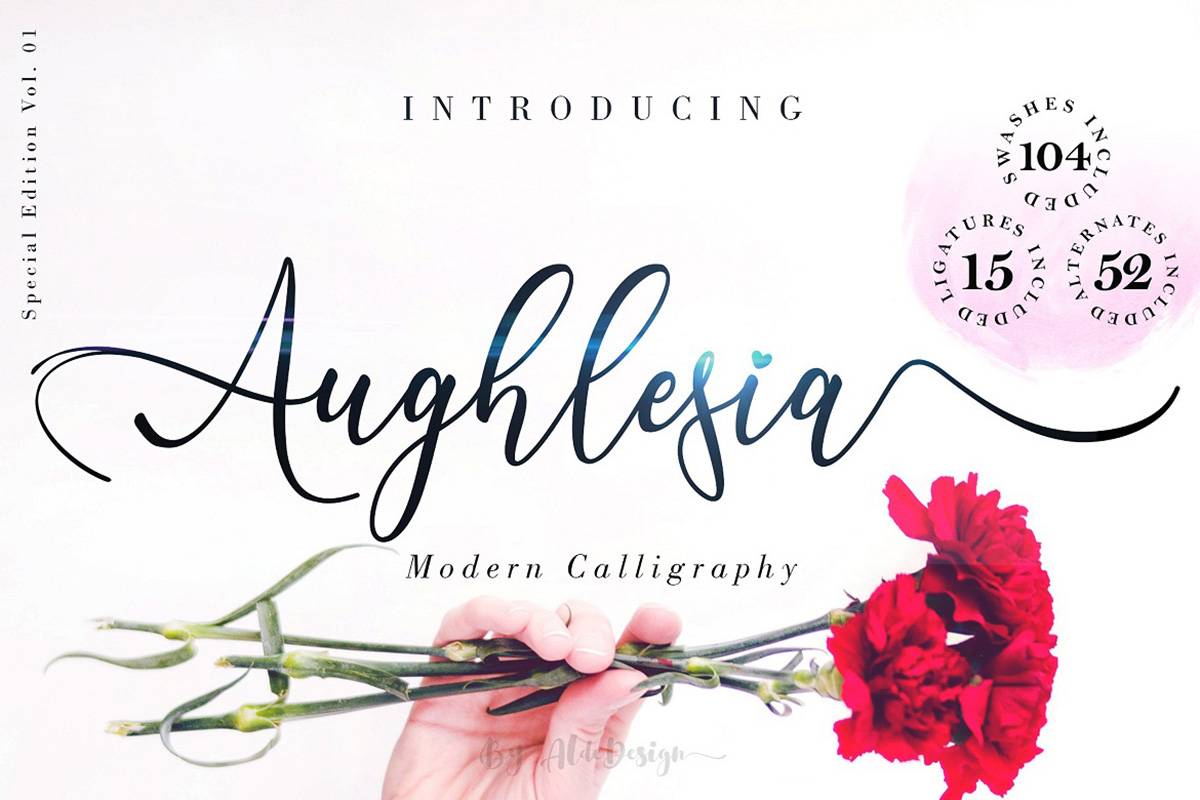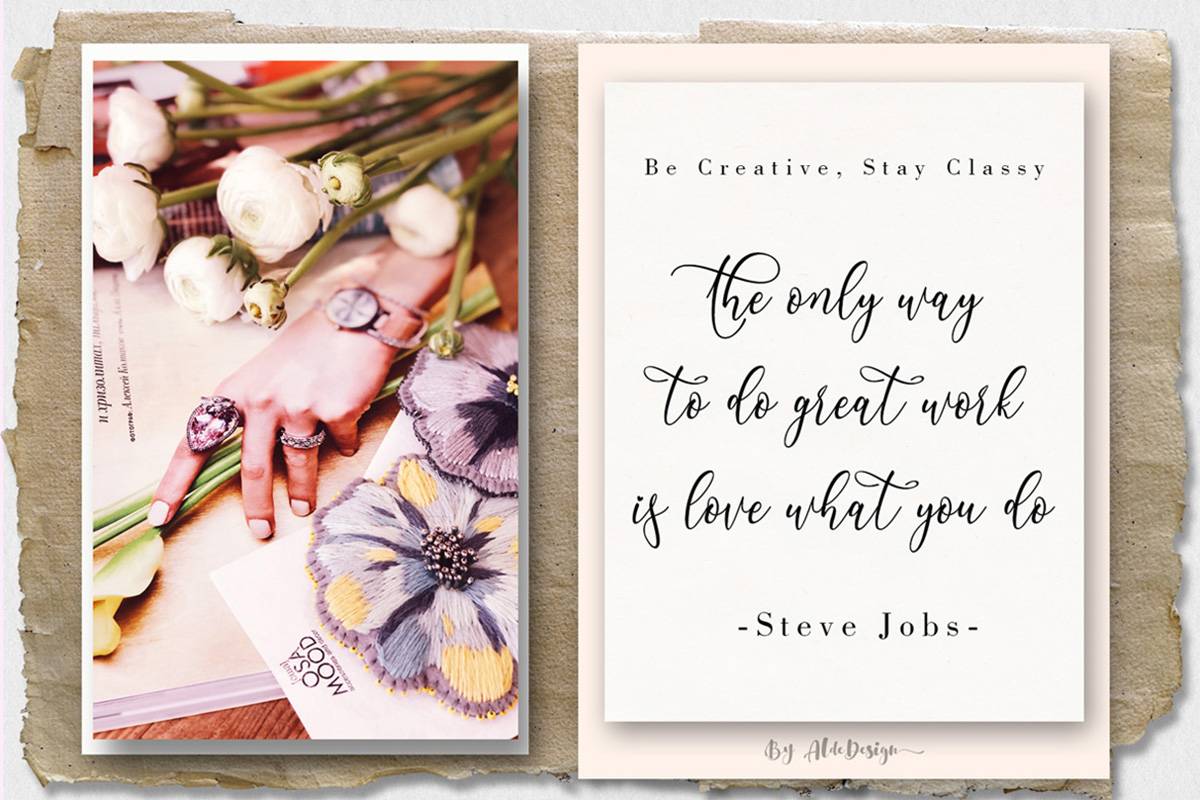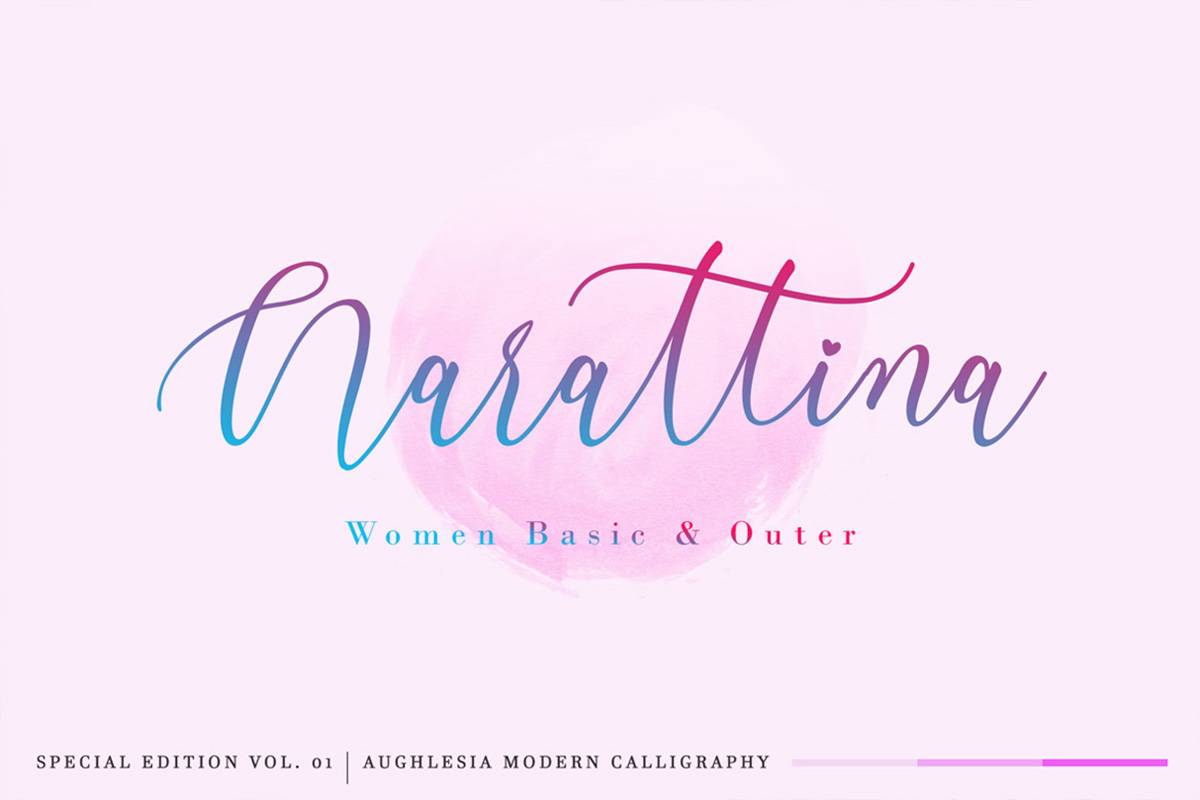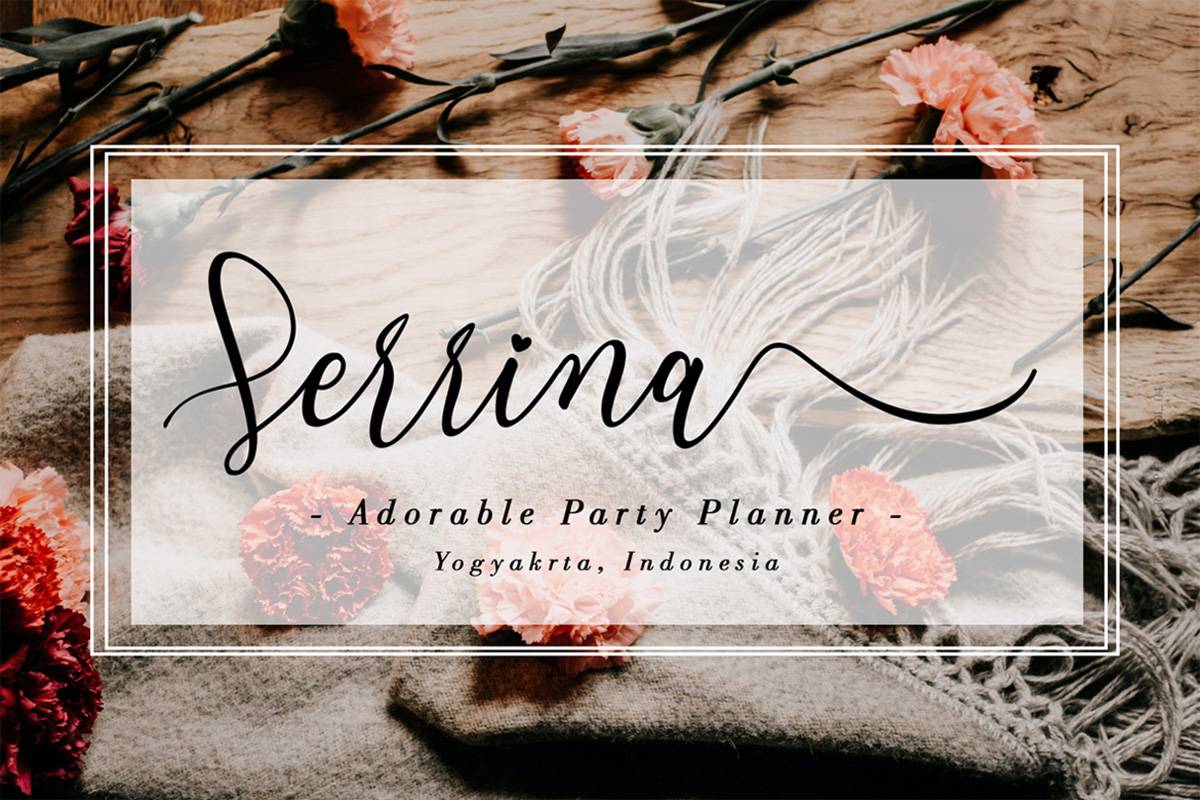
Aughlesia is a delicate, elegant script font featuring thin, flowing strokes with graceful swashes and a handwritten feel. Its tall, narrow letterforms and subtle contrasts make it perfect for sophisticated branding, wedding invitations, and stylish editorial use where a refined, romantic touch is desired. This font works well in display settings, adding charm and personality to any design needing a touch of elegance.
Aughlesia Font
About Aughlesia Font
| Font family | Aughlesia Font |
| Release date | 2020-05-12 |
| Designer | Aldedesign 2020 (Alde Saputro) |